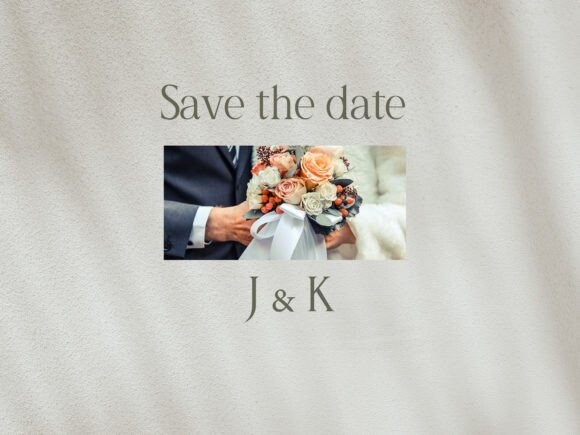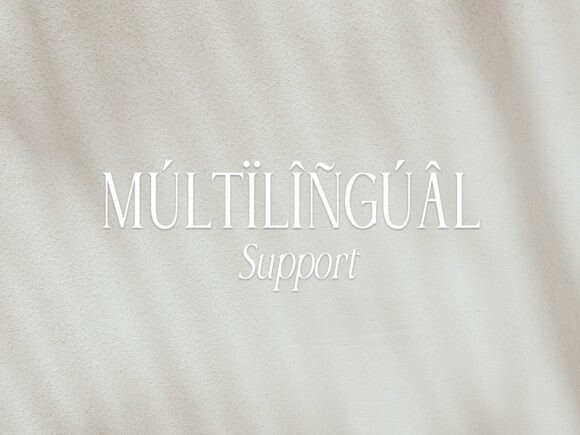
Allegre Font
Allegre Font – a new revival of the nostalgic serif that will make you remember what style was like in the 90s.
I really love how the 90s feel is coming back, seeing today’s young people wearing vintage t-shirts, Uppercase and lowercase letters give great versatility, Allegre is clean, sharp, clear